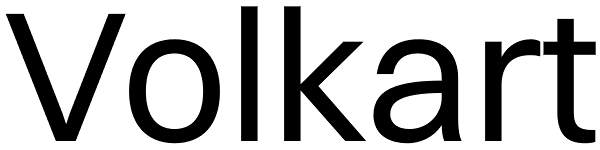
Volkart
Jérémie Hornus’s Volkart is a Latin-script typeface with 18 styles; nine of those are italics. The family is a neo-grotesk design, and it is one of ITF’s largest releases to-date. Volkart’s appearance is classic and timeless; it might resemble...